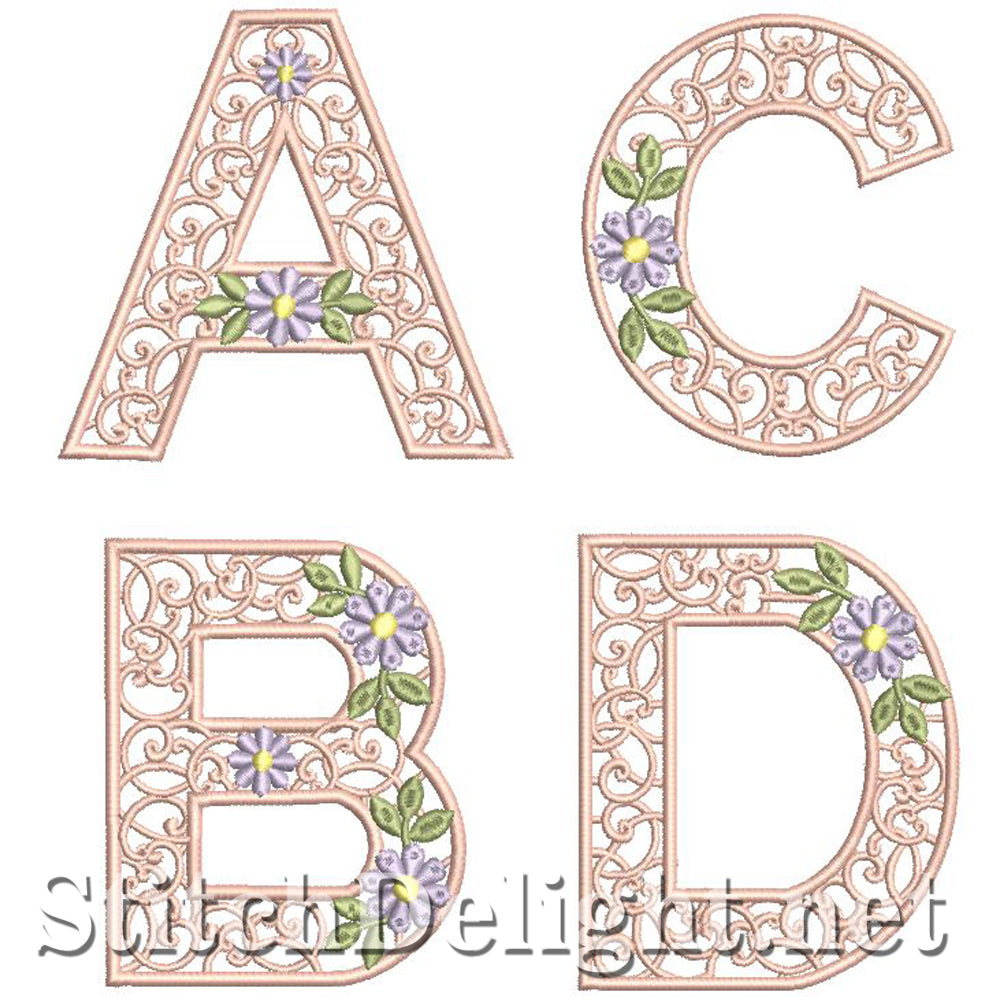
A lovely lacy font which can be stitched as freestanding lace letters or normal embroidery designs. This font is made for the 4x4 Hoop. Fabric can also be used instead of the plastic.